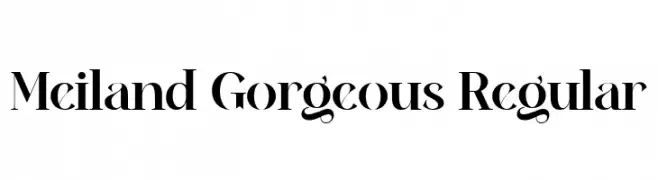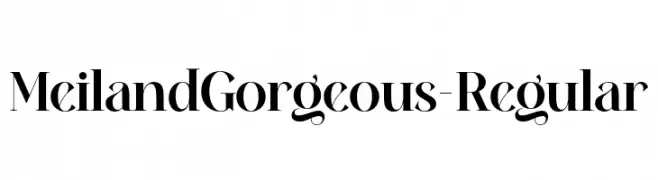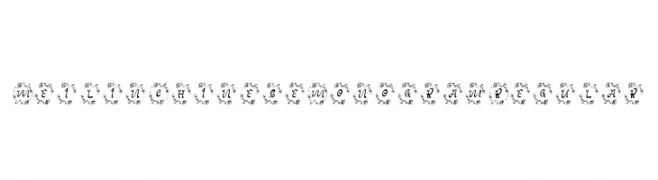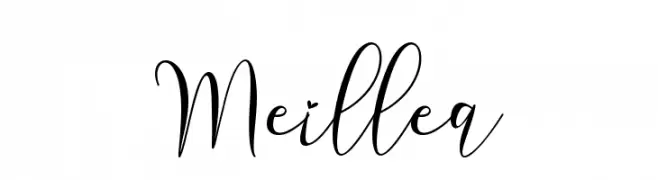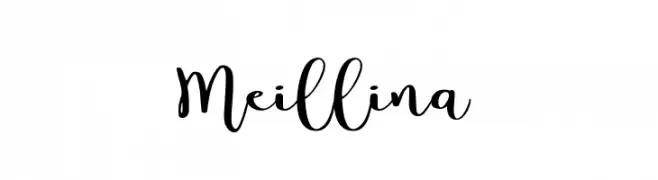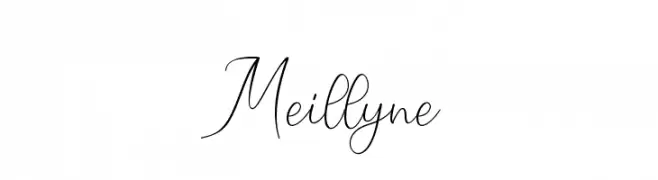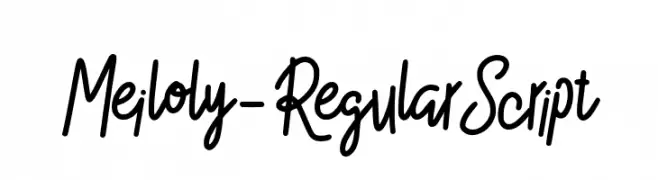
• Meila Arabic DEMO Line Light
A playful, balloon-like font with rounded, outlined characters.
• Meila Arabic DEMO Line Regular
A playful, rounded, and bold font with outlined, cartoon-like characters.
• Meila Arabic DEMO Solid
A bold, playful font with rounded, bubble-like characters and a strong, cohesive presence.
• Meiland Gorgeous Regular
A high-contrast serif font with elegant, dramatic strokes and a refined aesthetic.
• MeilandGorgeous-Regular
An elegant, high-contrast serif font with sharp serifs and stylish curves.
• Meilin Chinese Monogram Regular
An ornate, decorative font with script-like letters encased in floral designs.
• Meillea
An elegant, flowing script font with graceful curves and sophisticated style.
• Meillina
An elegant, flowing script font with a handwritten style.
• Meillyne
An elegant script font with flowing, cursive strokes and intricate loops.
• Meiloly-RegularScript
A lively, flowing script font with a handwritten appearance.